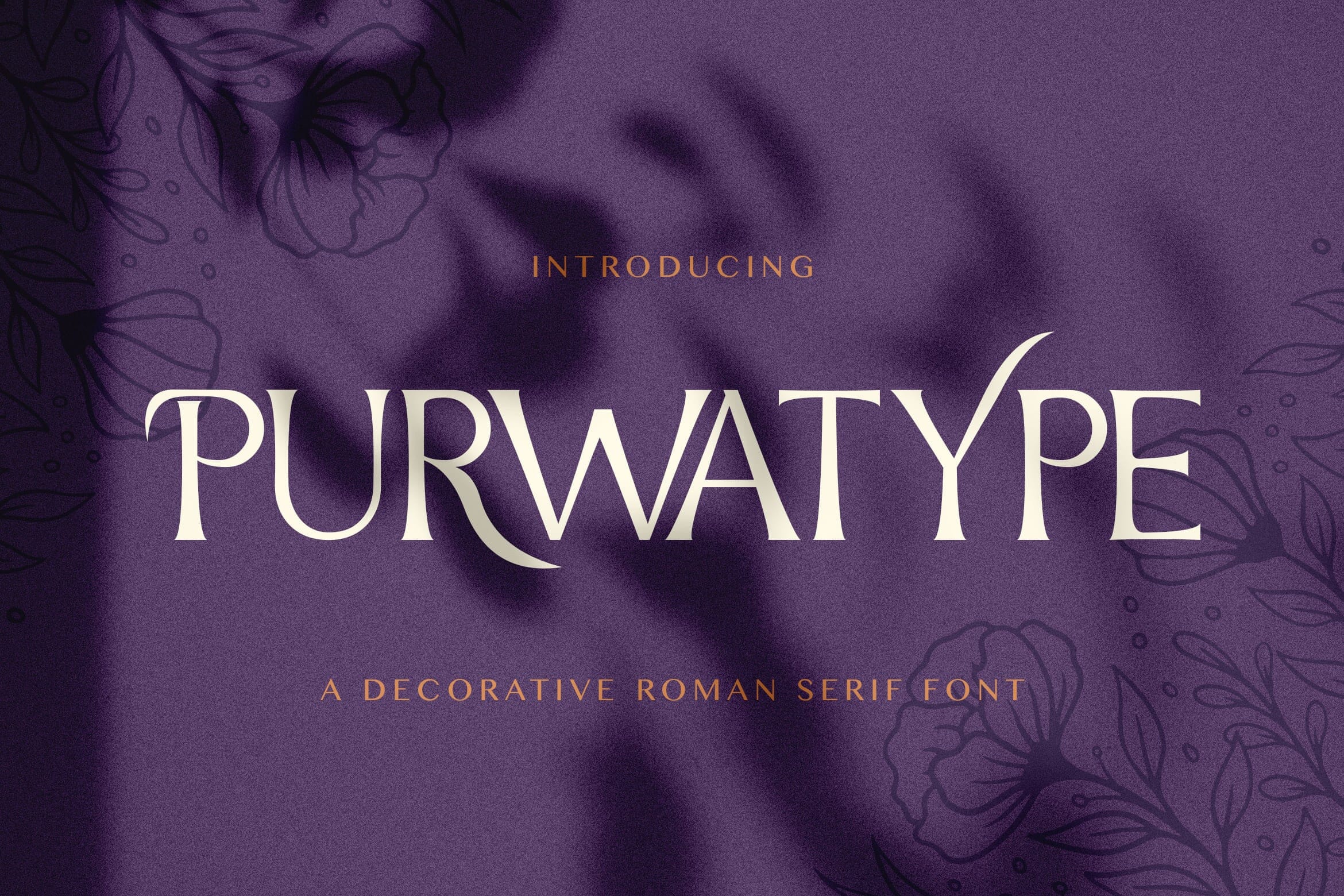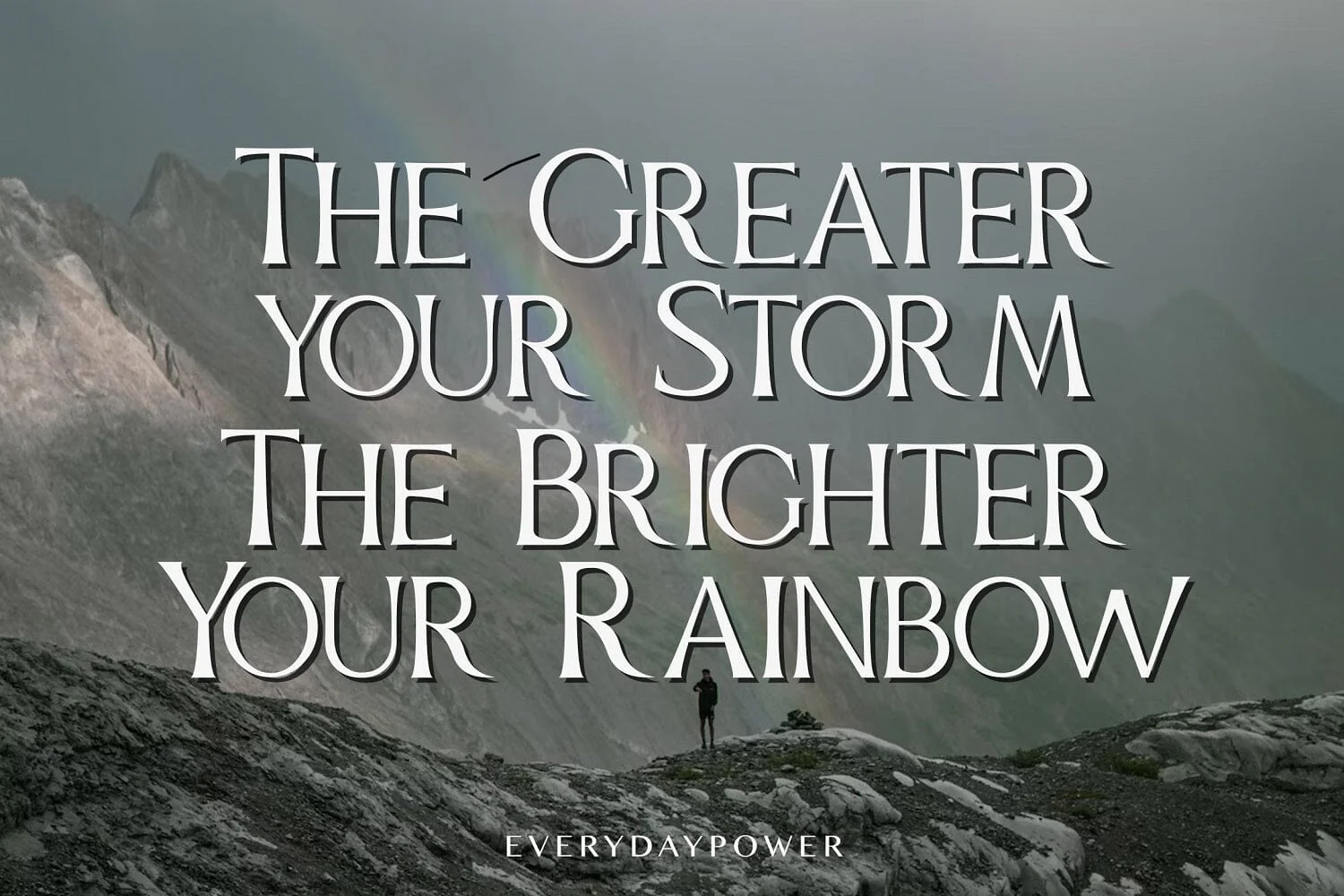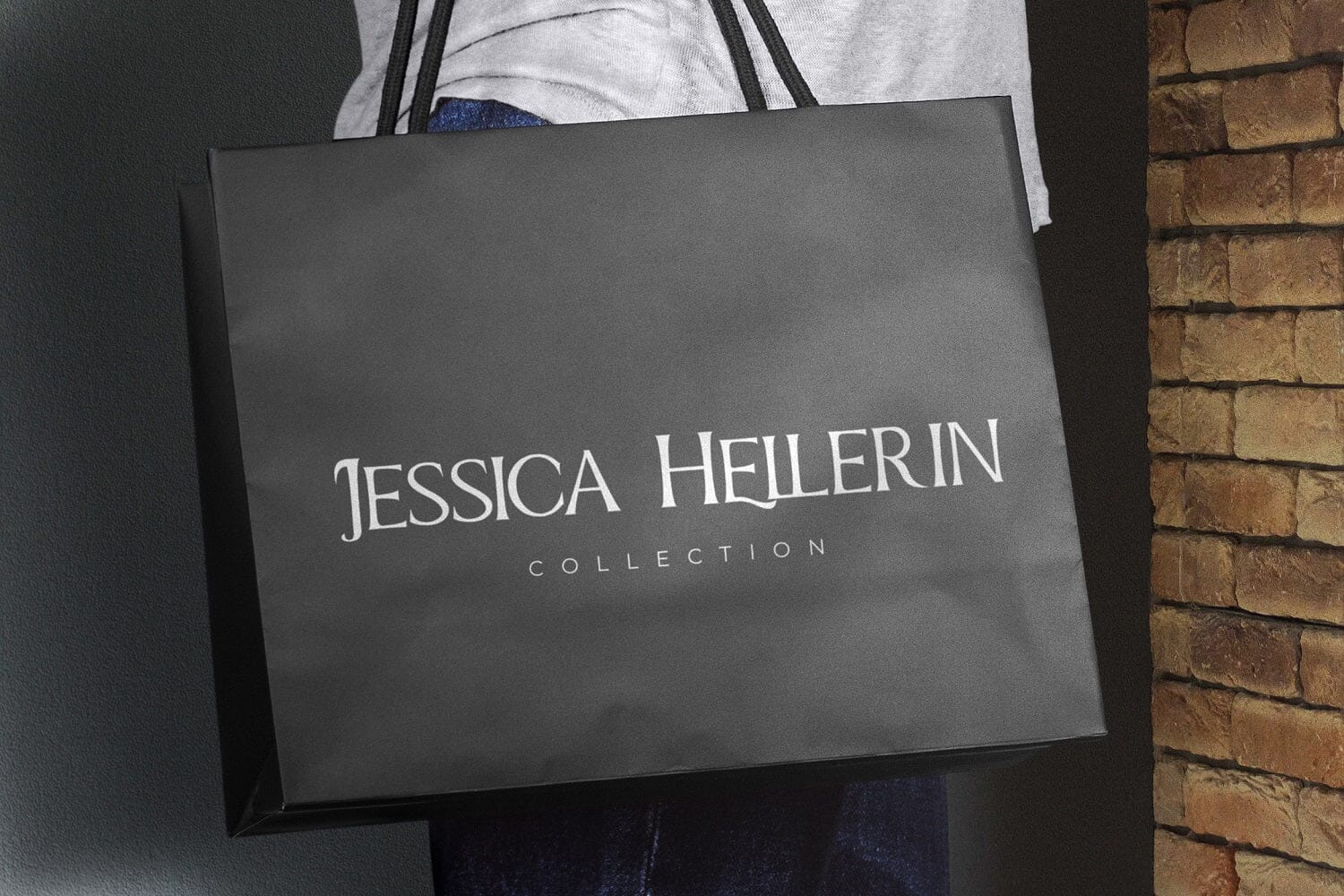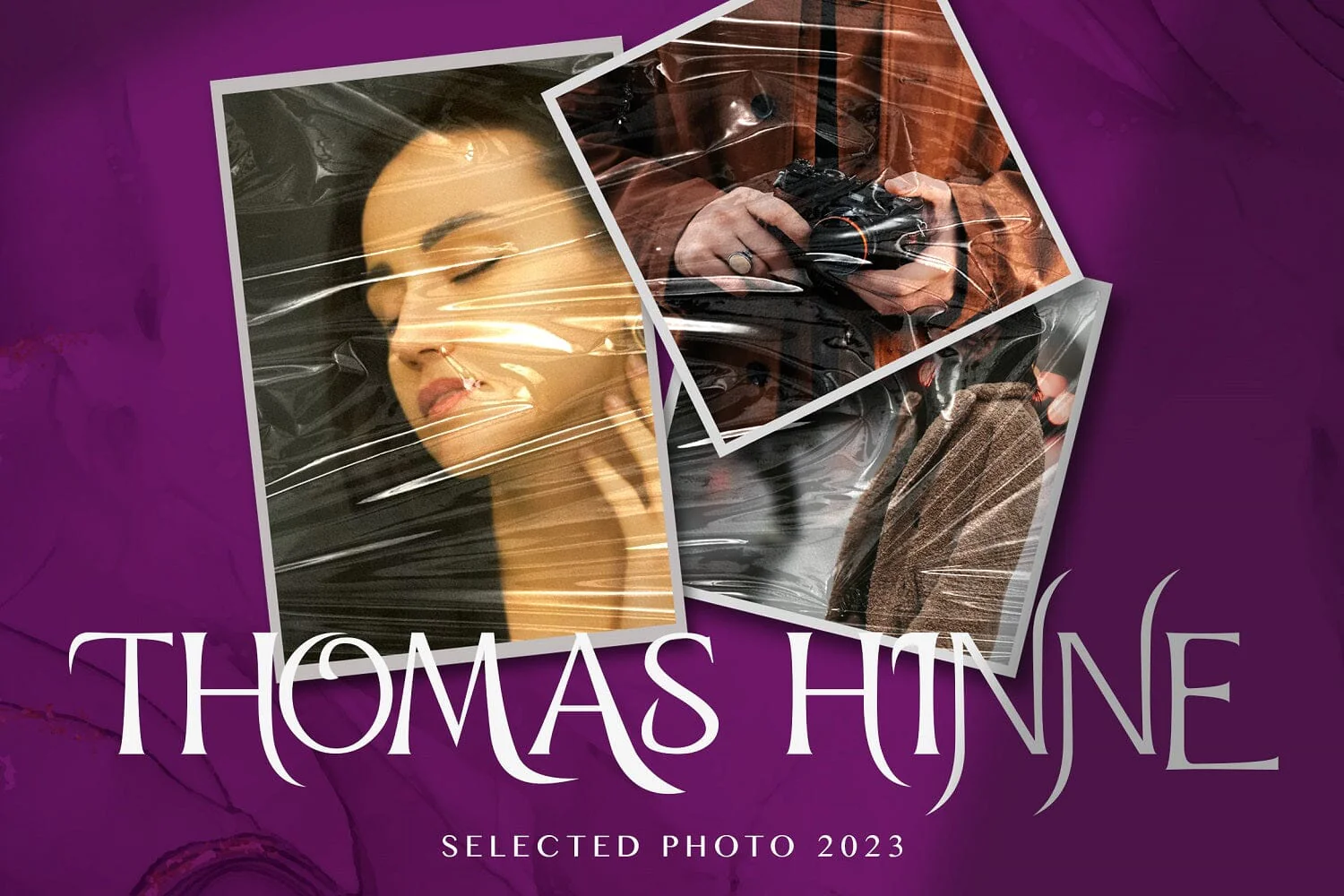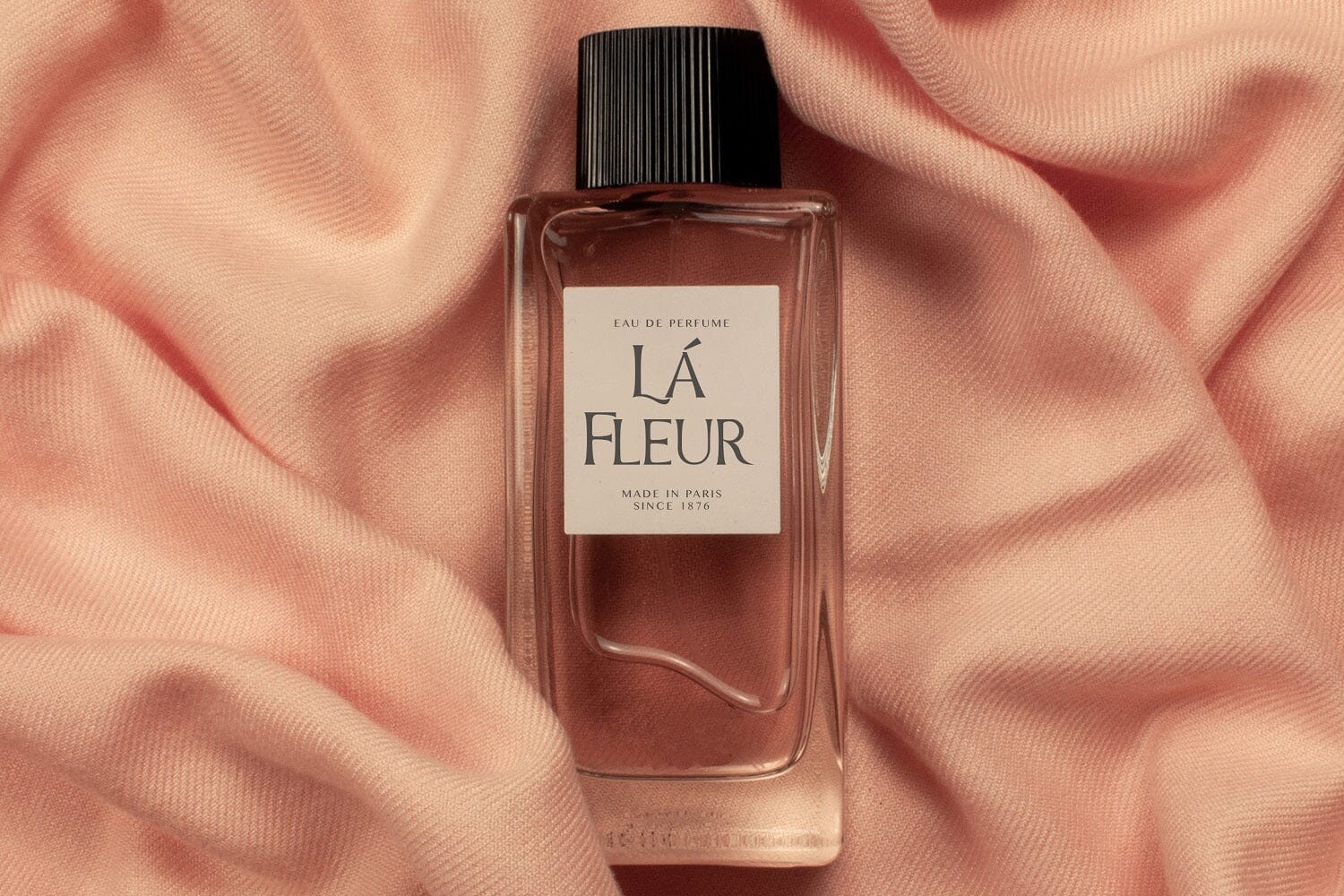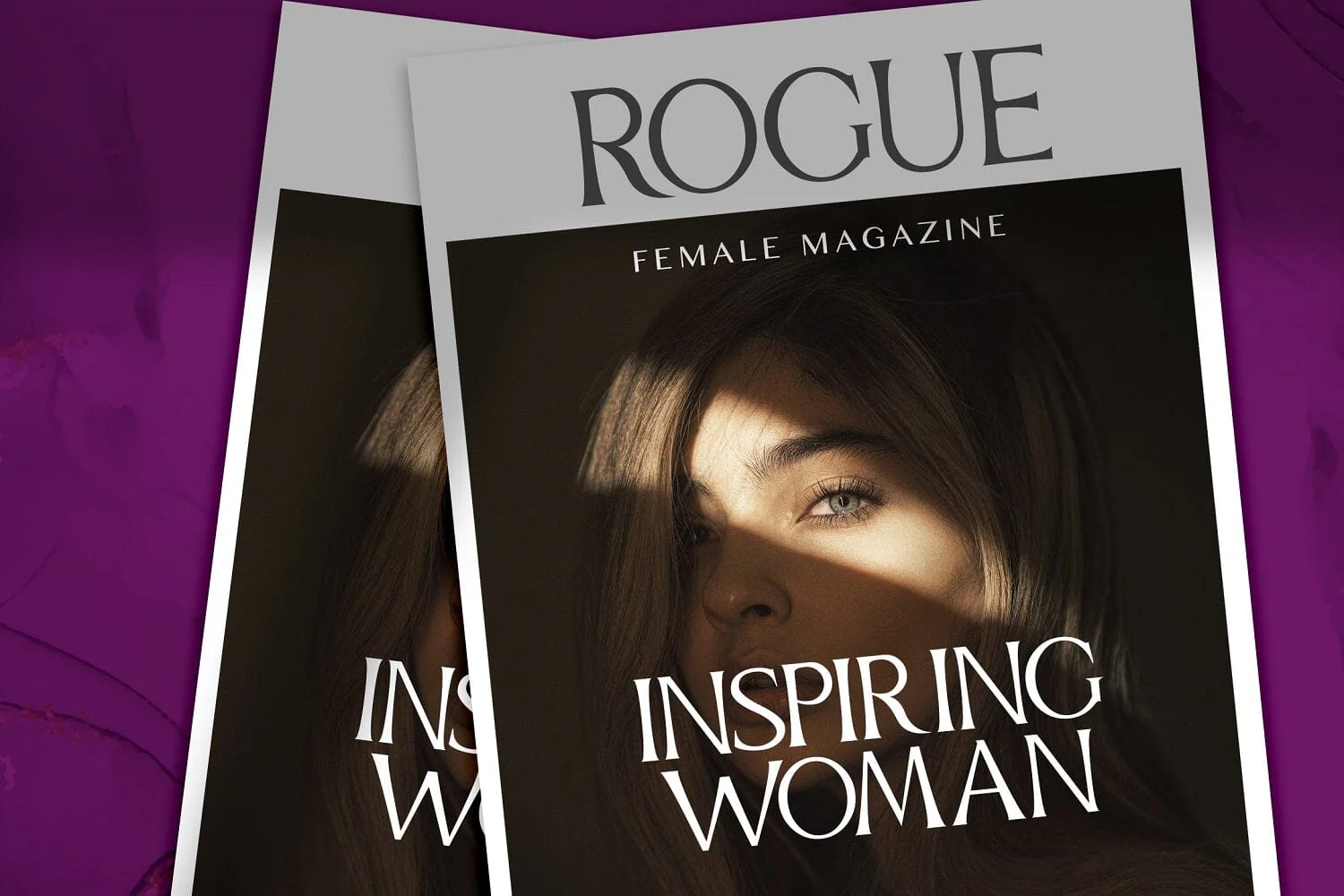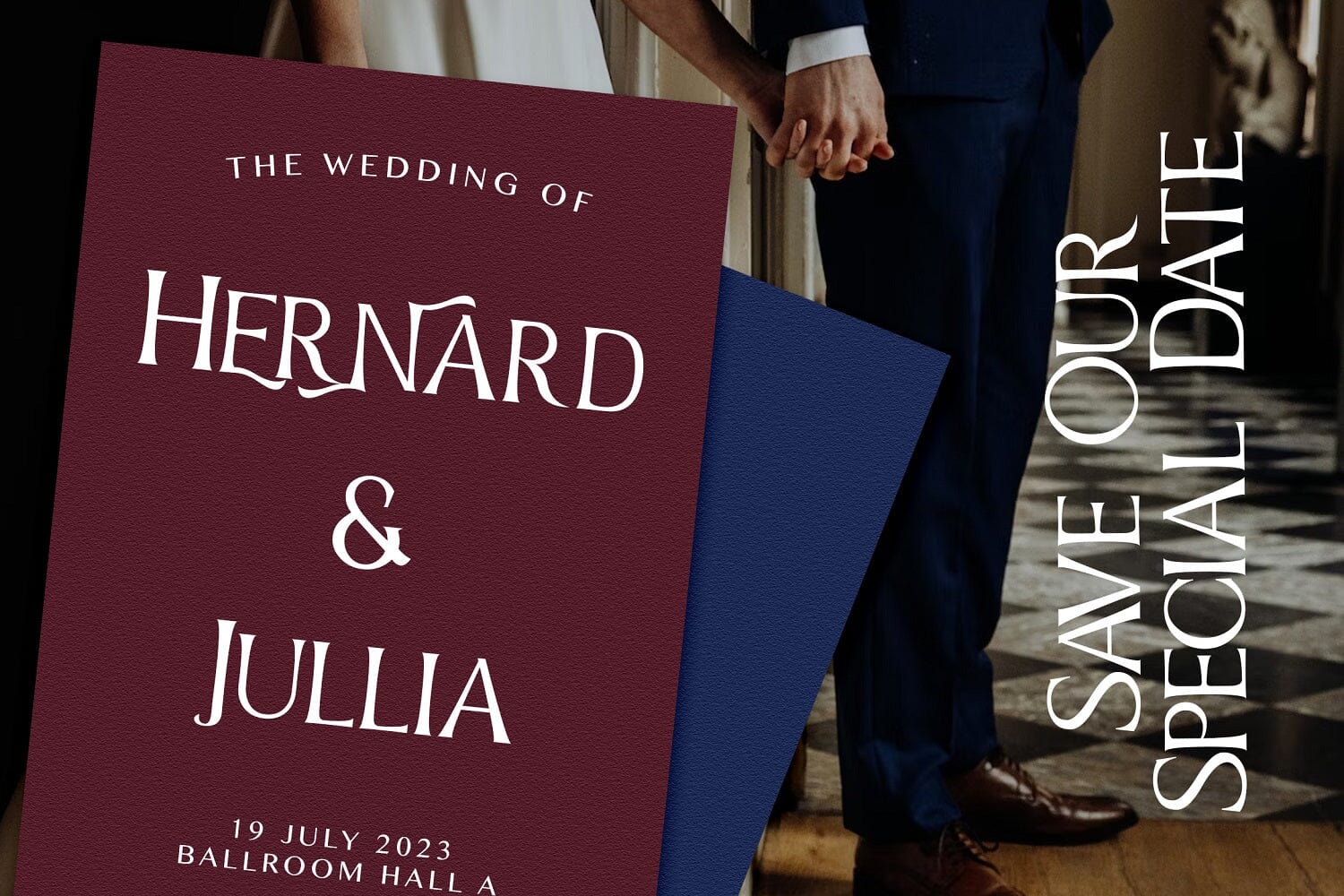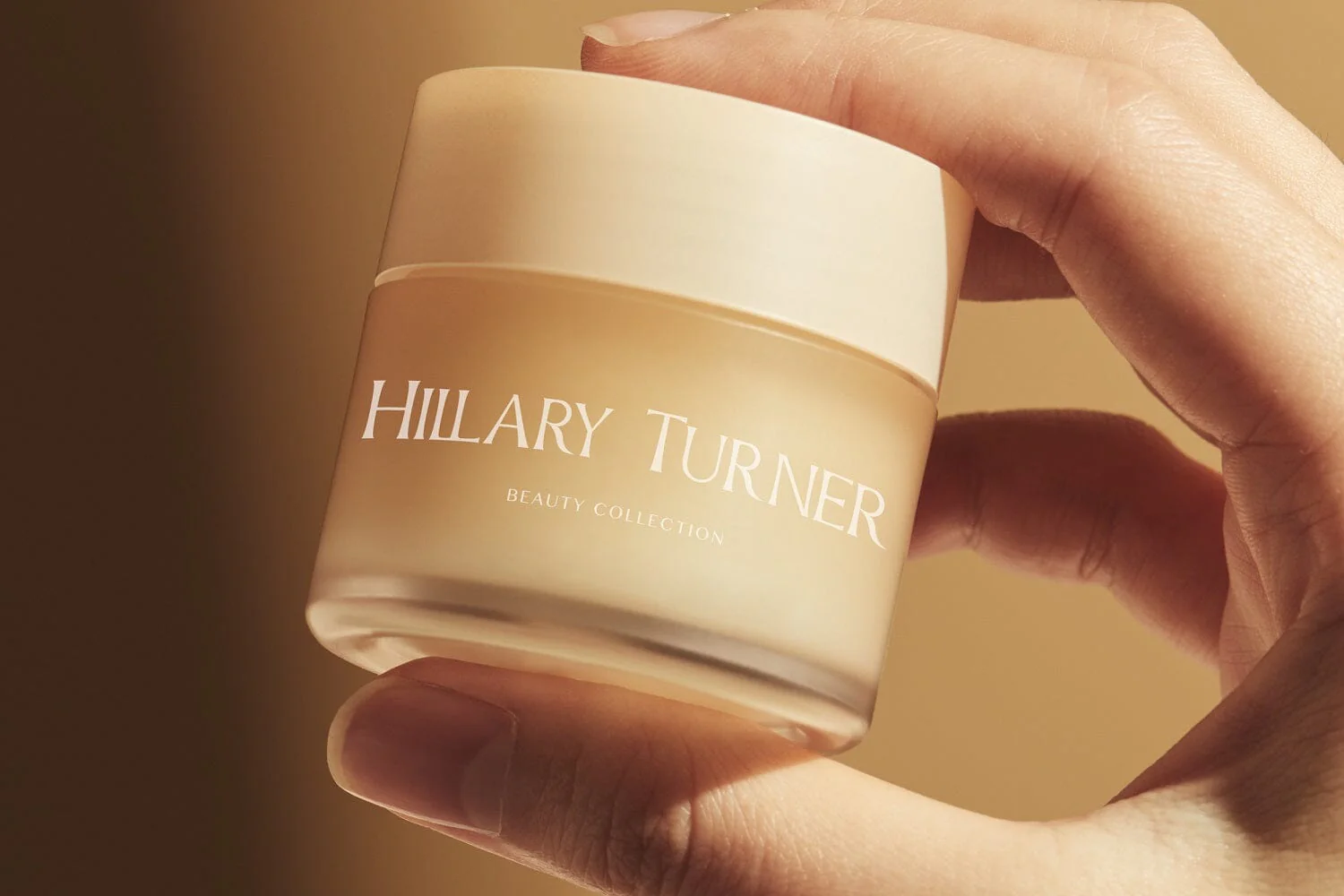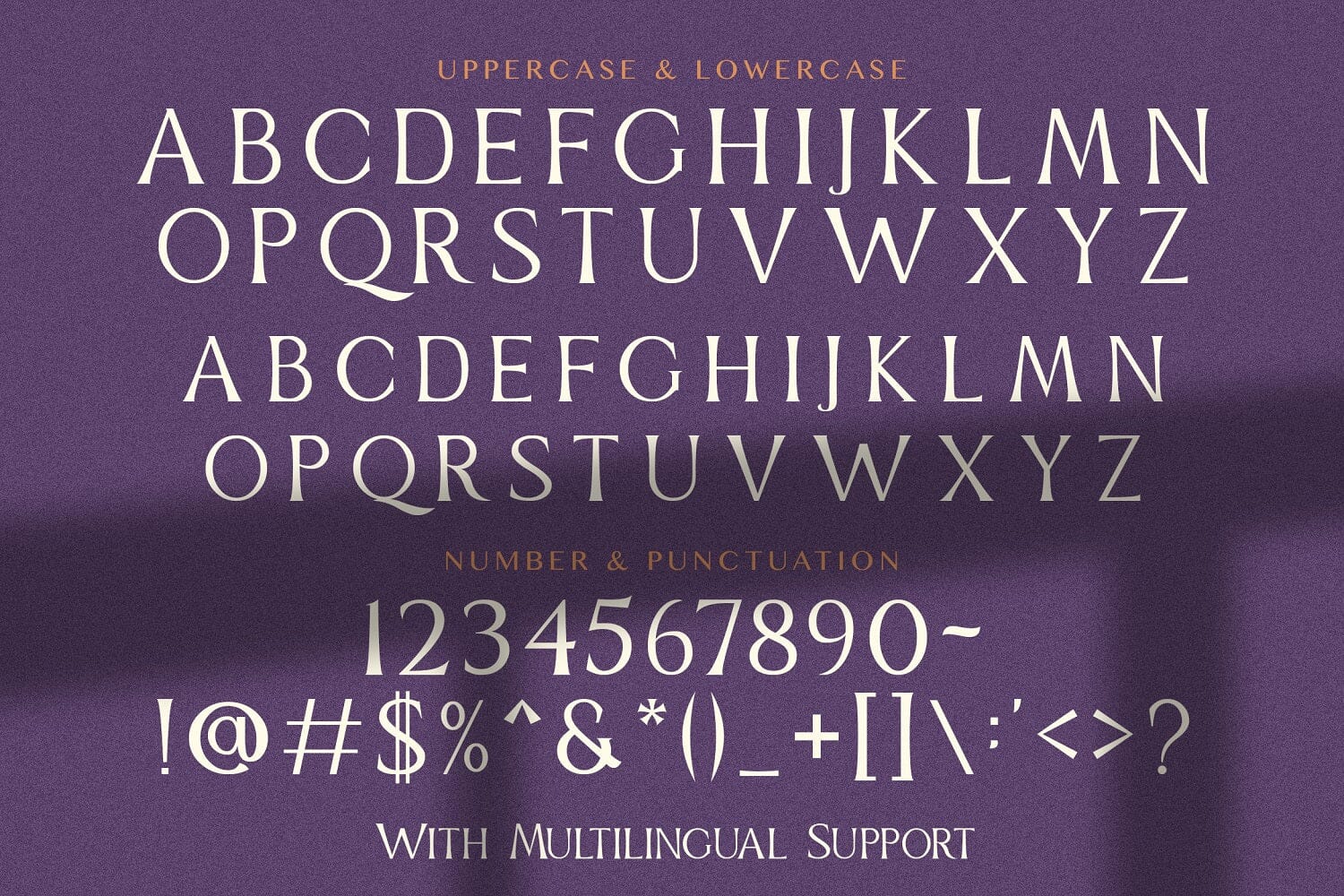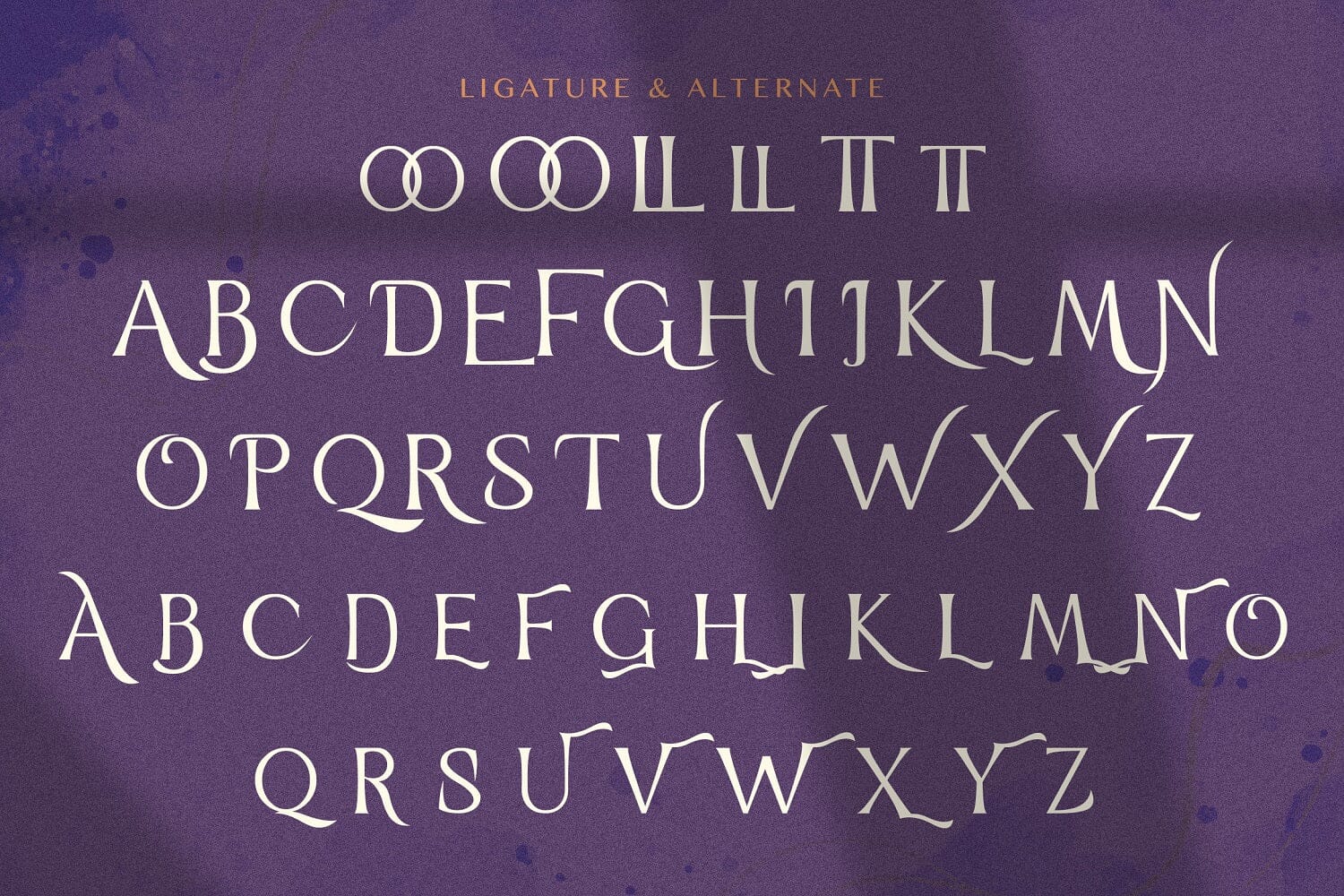
PURWATYPE - Roman Serif Font
Introducing PURWATYPE - Roman Serif Font
PURWATYPE is an authentic and decorative roman serif font. It can easily be matched to an incredibly large set of projects, so add it to your creative ideas and notice how it makes them stand out!
- Alternates & Ligatures